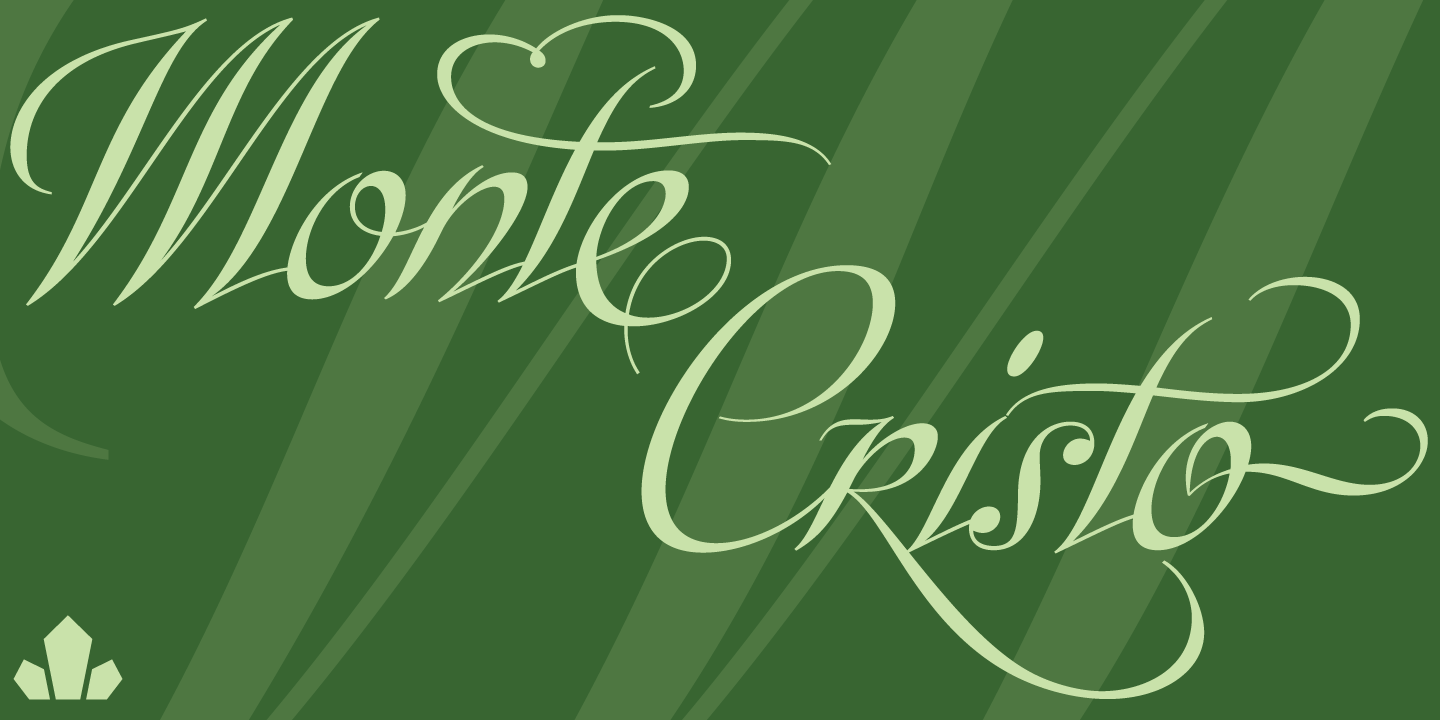
Monte Cristo Font is perfect for luxury hotels, premium cigar brands, high-end restaurants, vintage wine labels, exclusive clubs, aristocratic branding, historical novels, elegant invitations, and any project requiring sophisticated typography with old-world nobility and mysterious elegance.
What makes Monte Cristo Font exciting is its aristocratic grandeur that captures the essence of 19th-century French sophistication and literary romance with ornate letterforms reminiscent of Alexandre Dumas' legendary tales. This magnificent typeface embodies the opulence and intrigue of European nobility with elaborate details and classical proportions that speak of wealth, mystery, and timeless elegance. The font's dramatic character and vintage luxury make it perfect for brands that want to convey exclusivity, heritage, and sophisticated taste.
The Monte Cristo Font family includes regular and ornamental weights, featuring complete uppercase and lowercase alphabets, numerals, punctuation marks, and decorative flourishes. The font maintains consistent aristocratic elegance throughout all characters while ensuring excellent readability for both dramatic headlines and refined text applications in luxury contexts.
Whether you're designing for luxury hospitality, creating premium product packaging, or developing exclusive branding with aristocratic heritage, Monte Cristo Font Free Download delivers unmatched sophistication and old-world charm. This distinguished typeface transforms ordinary text into regal visual statements that evoke mystery, luxury, and European refinement. The font's ornate character makes it ideal for high-end establishments, literary projects, and exclusive events. Download this exceptional font today and bring the timeless elegance of French aristocracy to your design projects with authentic nobility and romantic sophistication.